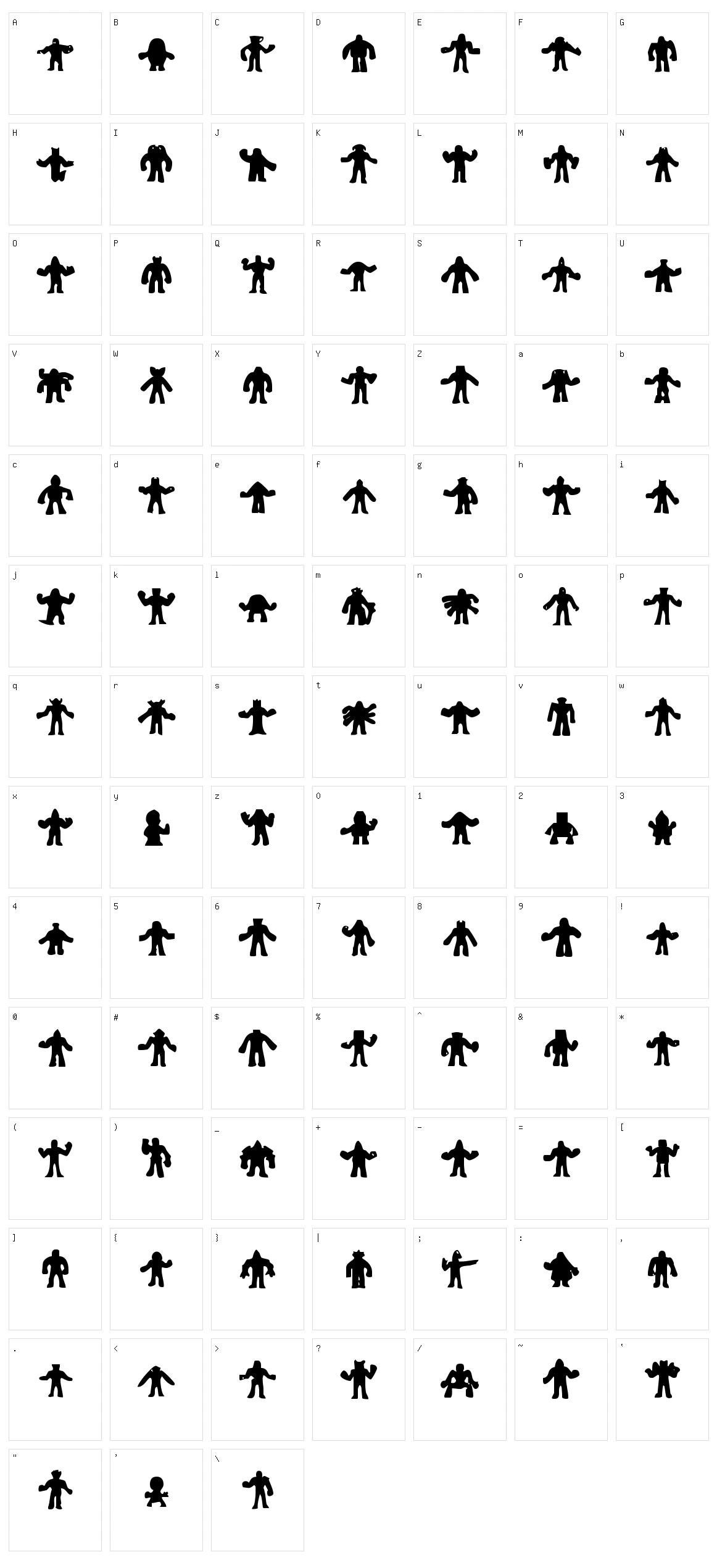
This font comes in two variations: Regular and 3D.
This is a dingbat font with over 90 glyphs of those little, rubber toy monsters that were big back in the 80's.